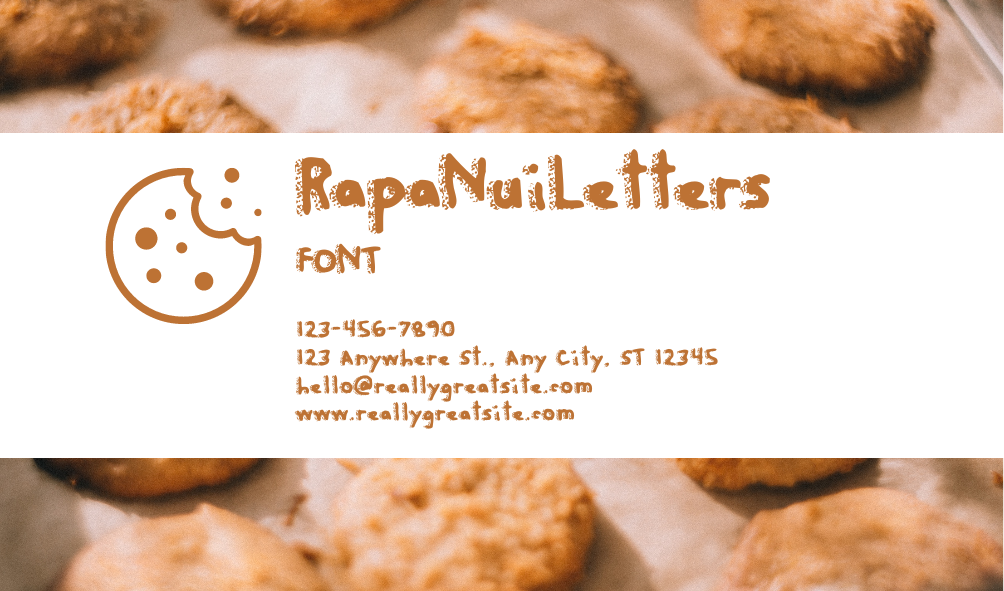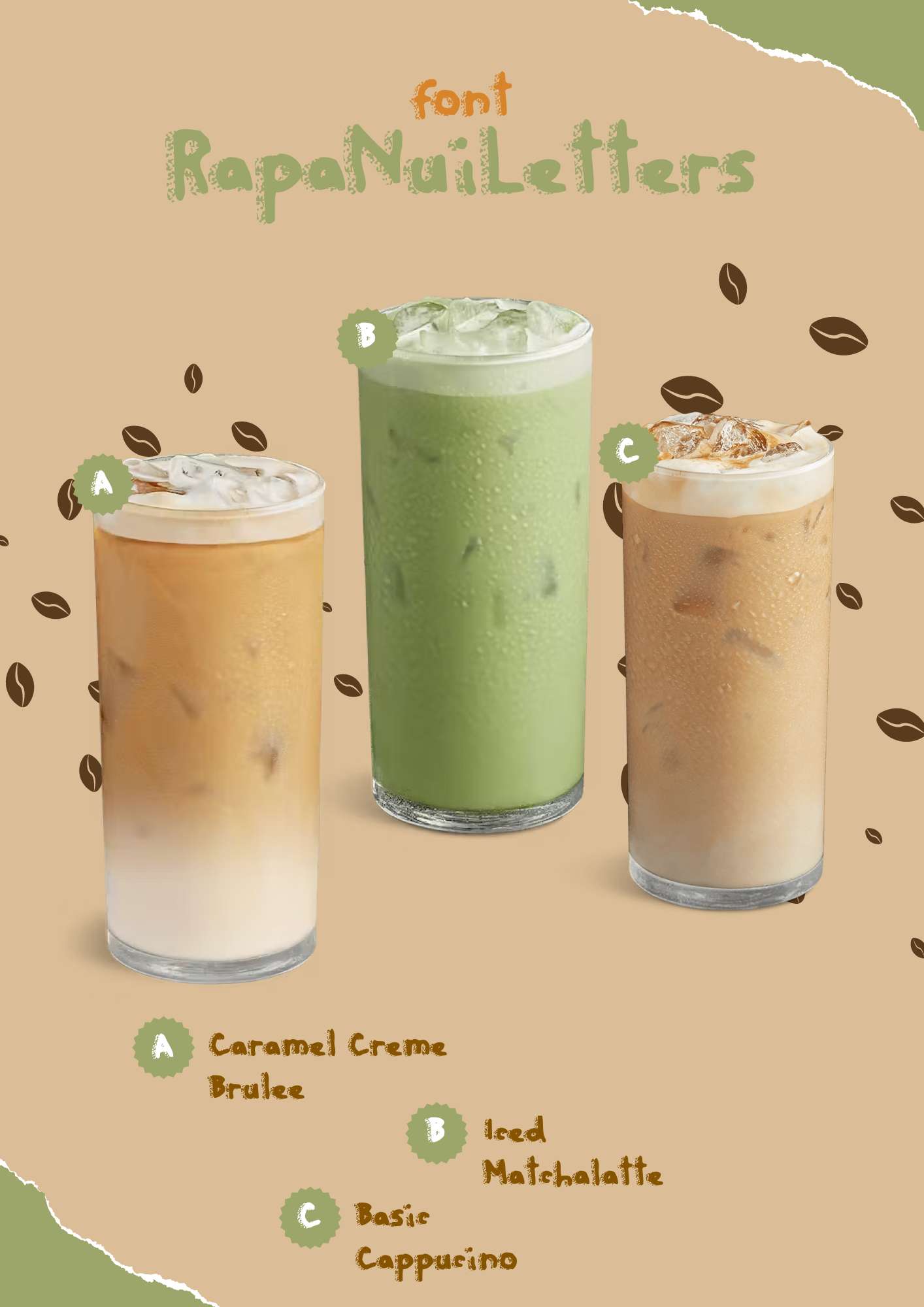
RapaNuiLetters is a font that is well-suited for creating fun and playful designs.The font subfamily Regular is the most basic and versatile style of RapaNuiLetters.